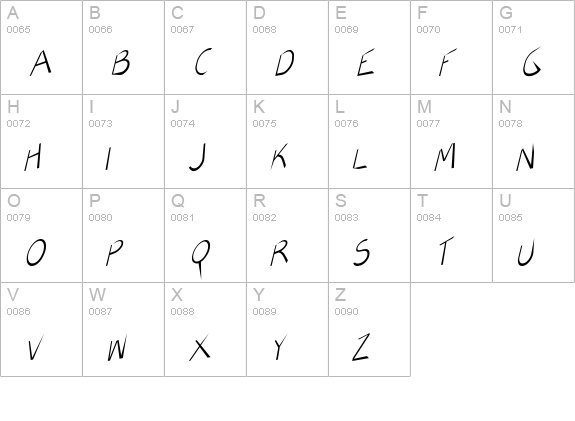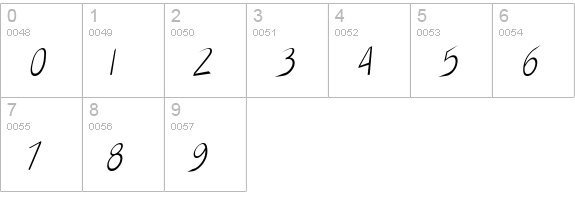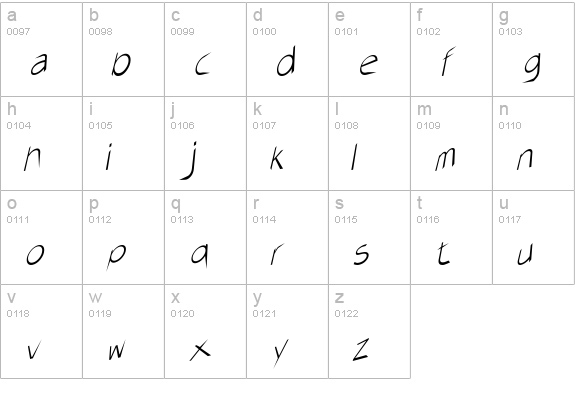
AirCut Light Font Details
AirCut Light is a refined, elegant variant in the AirCut typeface family \xE2\x80\x94 well suited to elegant body text, refined sub-headings, and luxury branding.
Introducing AirCut Light font, a modern and stylish typeface that exudes elegance and sophistication. With its clean lines and sleek design, AirCut Light is perfect for a wide range of projects, from branding to editorial design. This versatile font is sure to make your text stand out with its subtle yet impactful appearance. The best part? AirCut Light is available for free download at FontsMarket.com. So, whether you're working on a personal project or a professional design, you can easily access this beautiful font without any cost. Don't miss out on the opportunity to enhance your creations with the timeless charm of AirCut Light font. Download it today and elevate your designs with this stunning typeface.